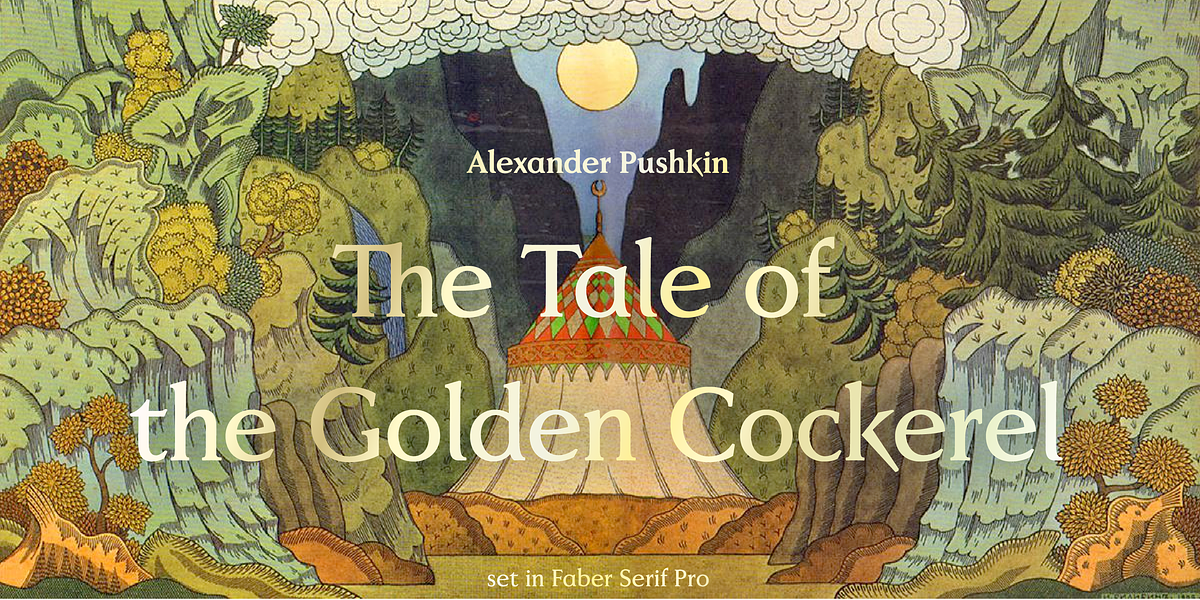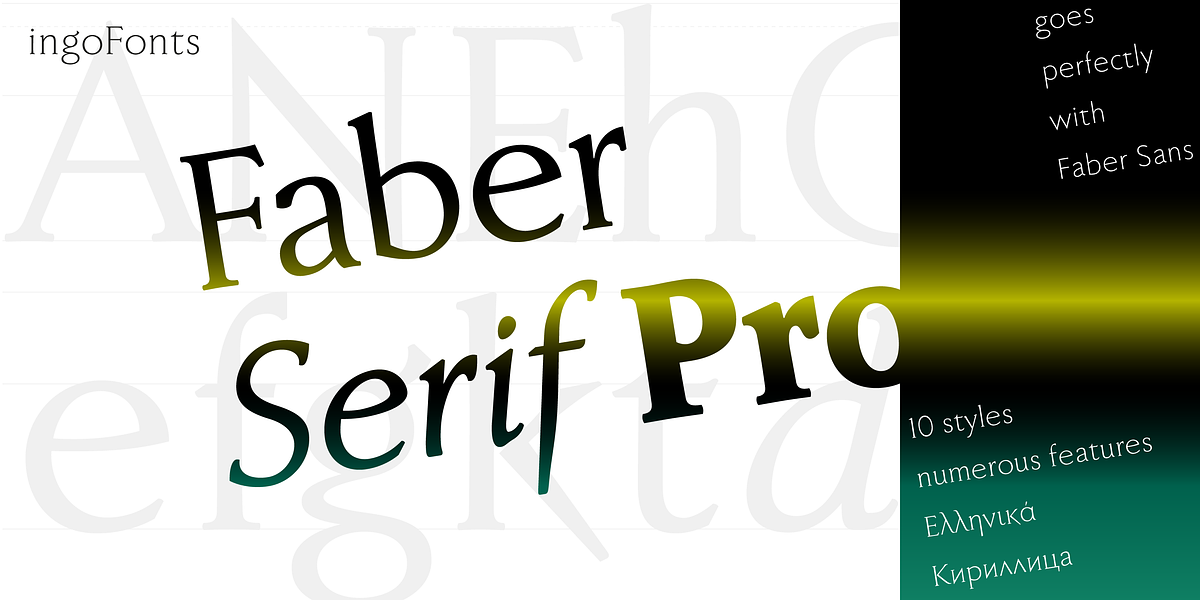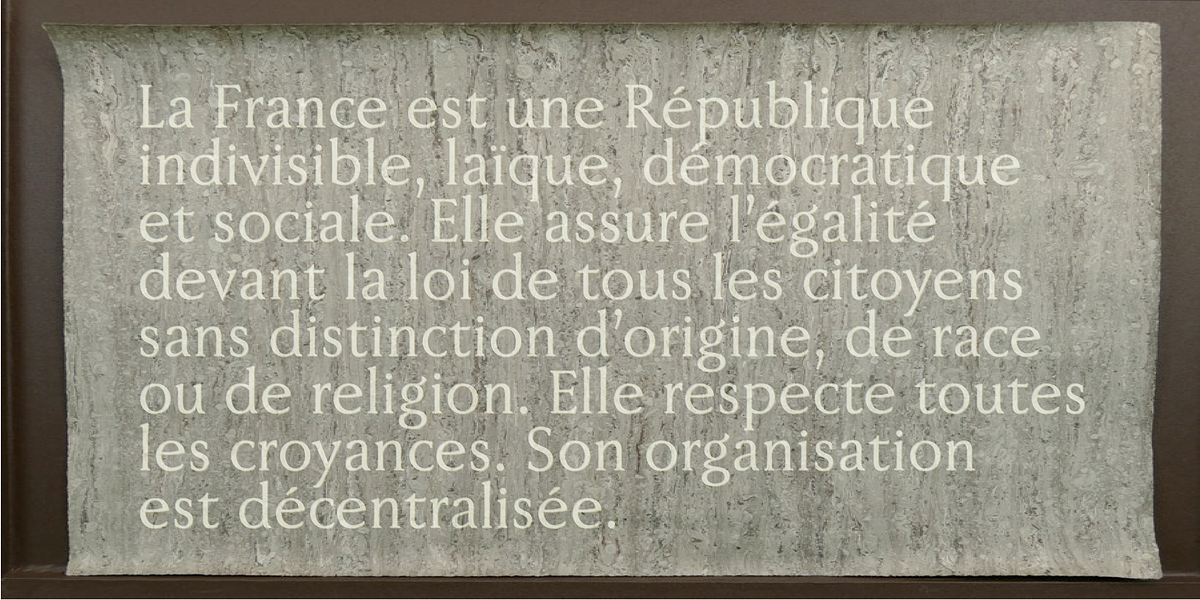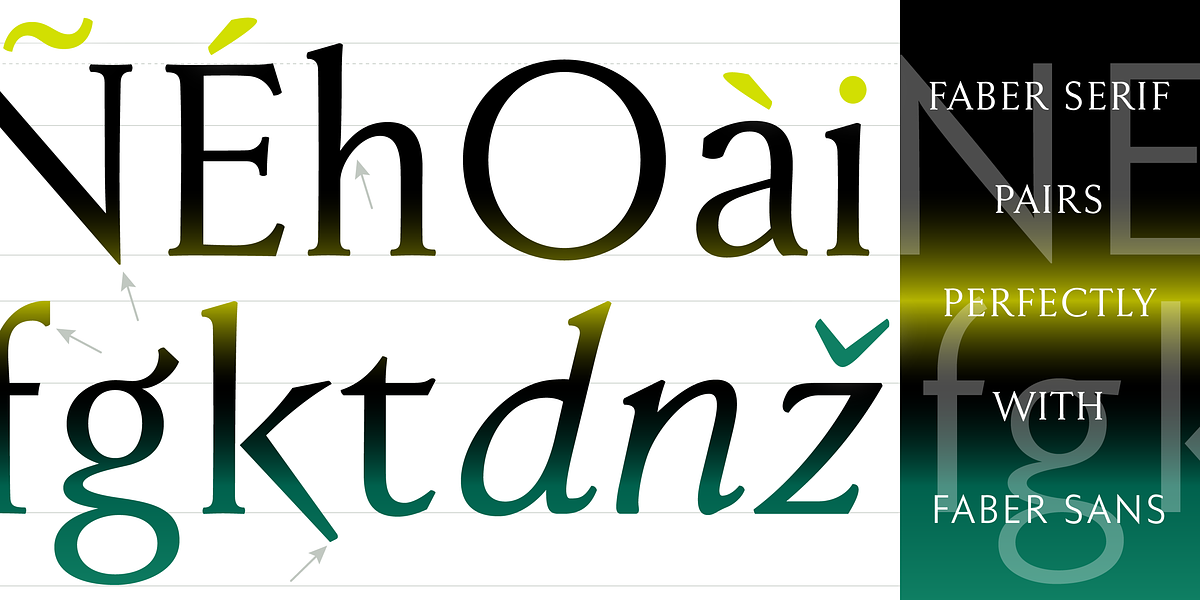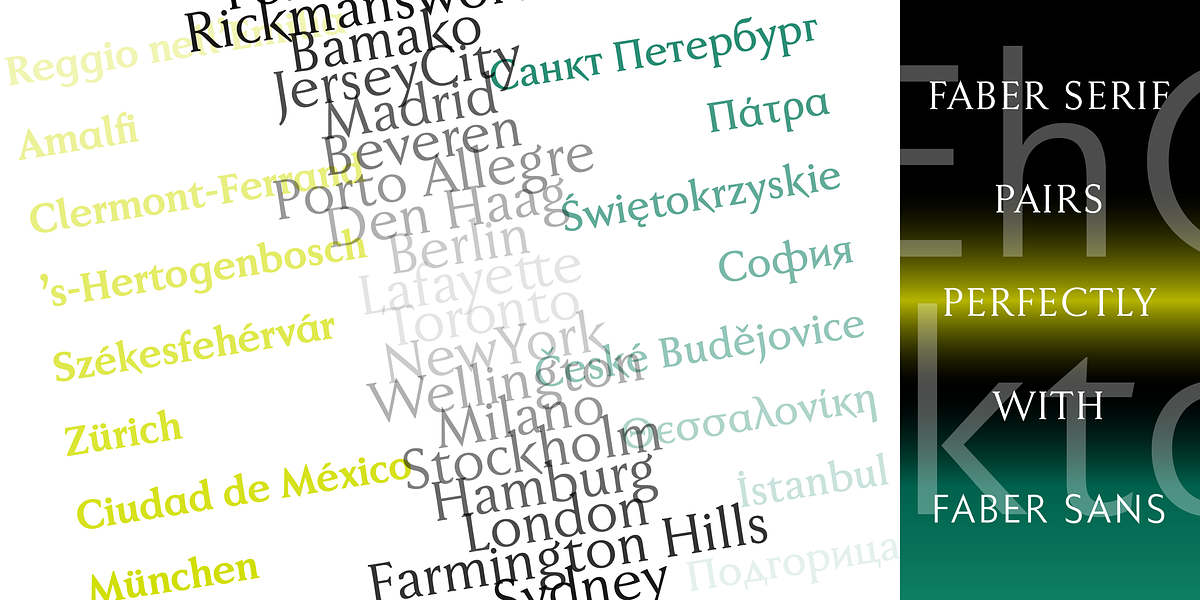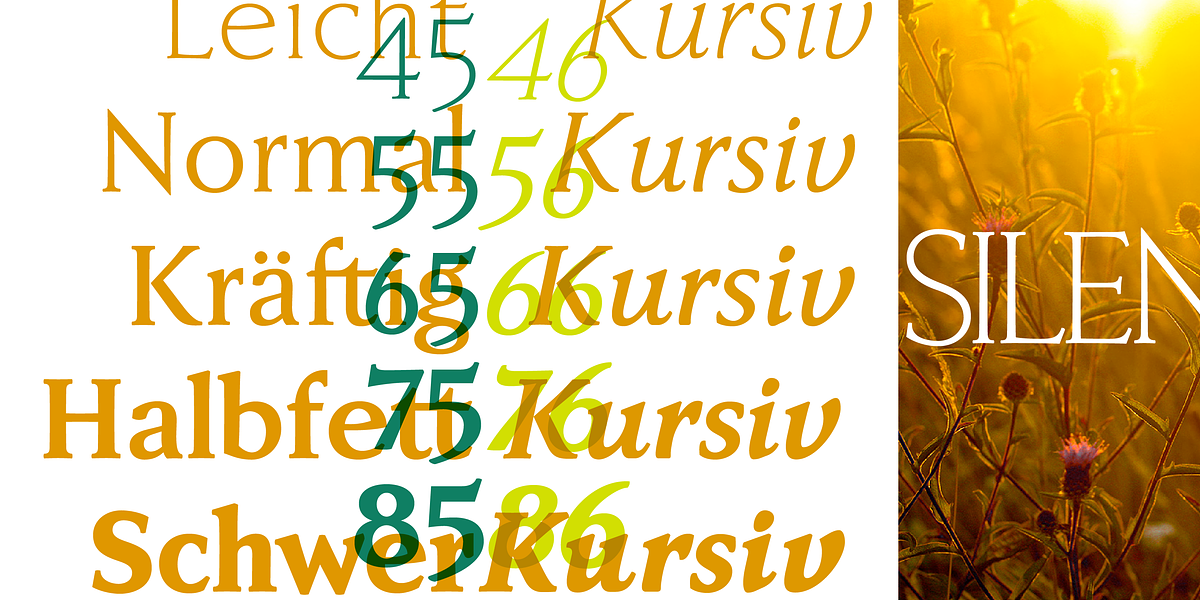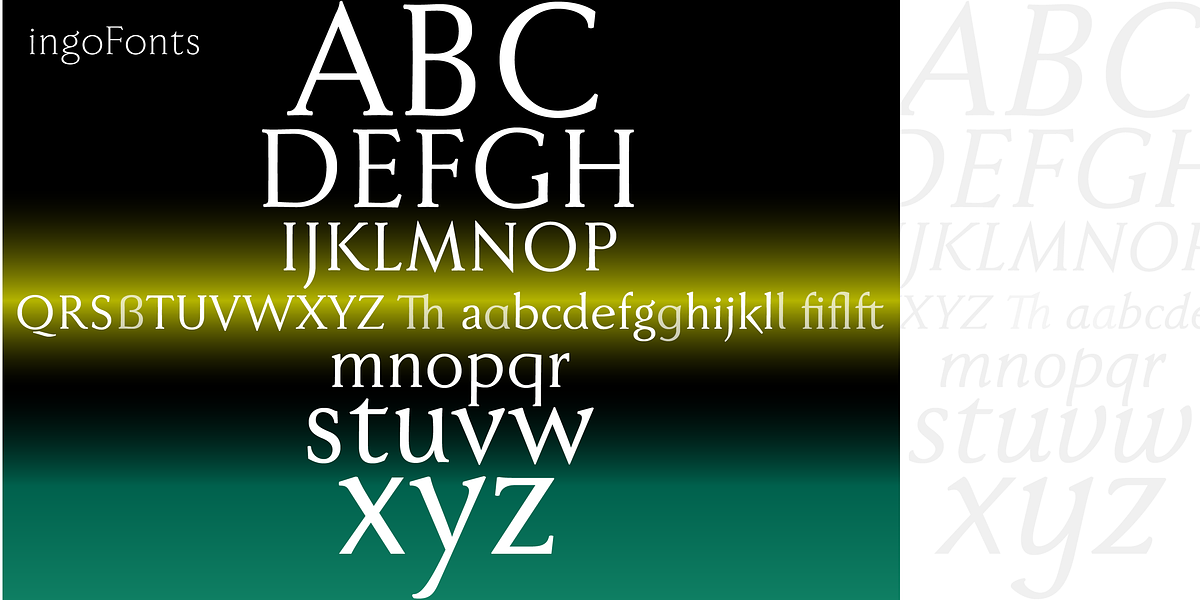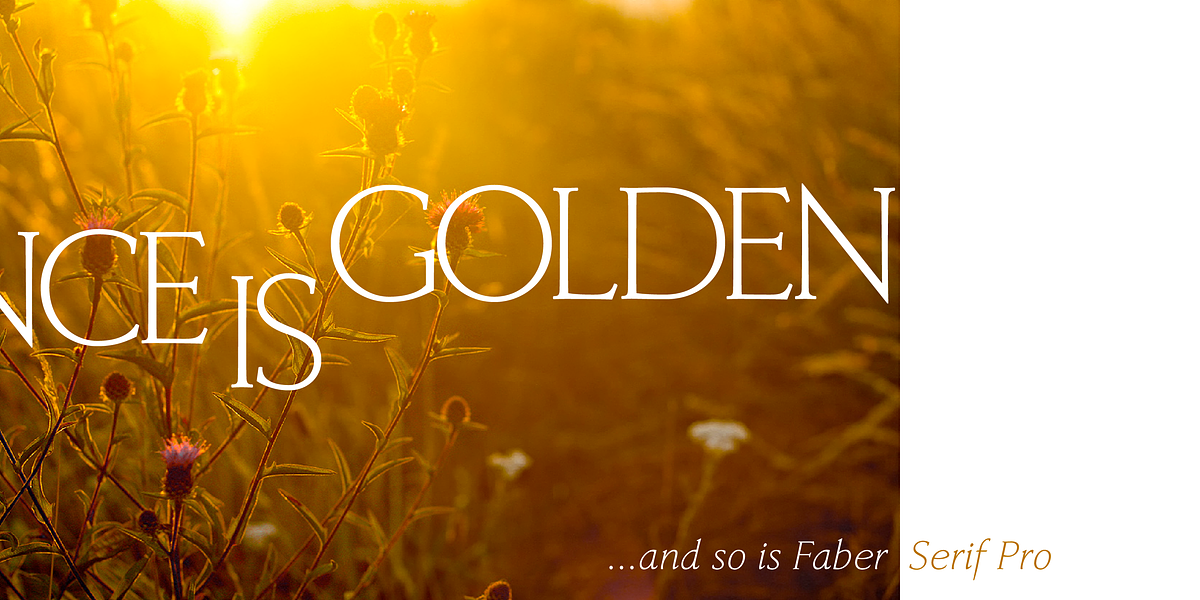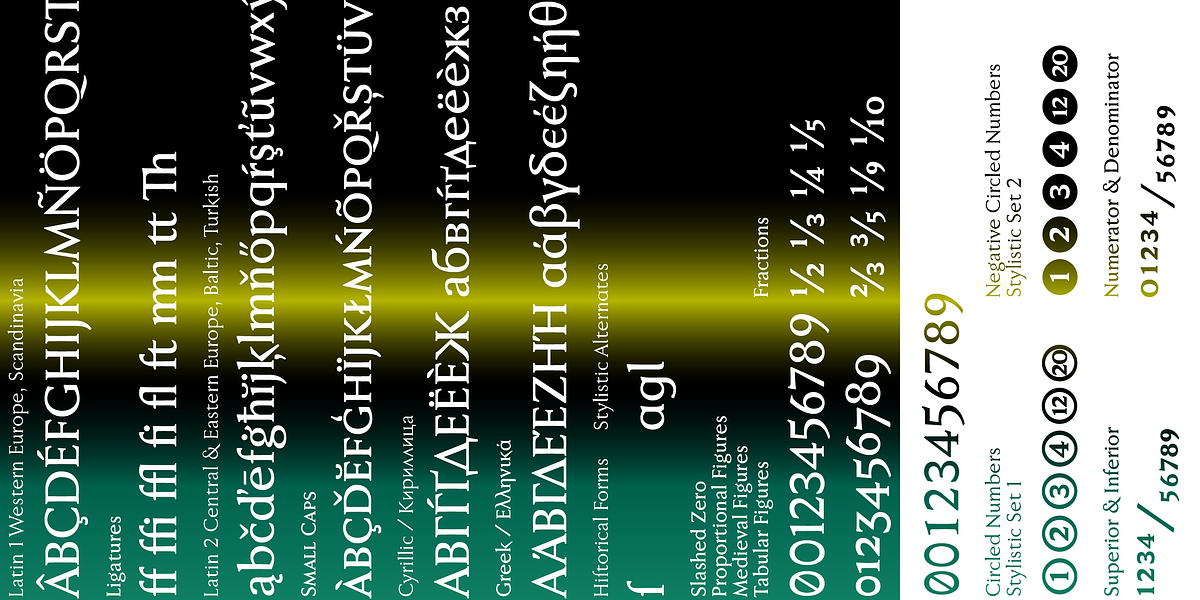
Faber Serif Pro
Faber Serif is a transitional serif typeface that draws inspiration from early Roman typefaces of the 15th century. It features short, heavy serifs and a reserved stroke design that creates a balanced and refined aesthetic. The font's high contrast between thick and thin strokes contributes to its readability and classic appeal. Faber Serif offers a range of OpenType features, including stylistic alternates, ligatures, and historical forms, allowing for customization and typographic versatility.